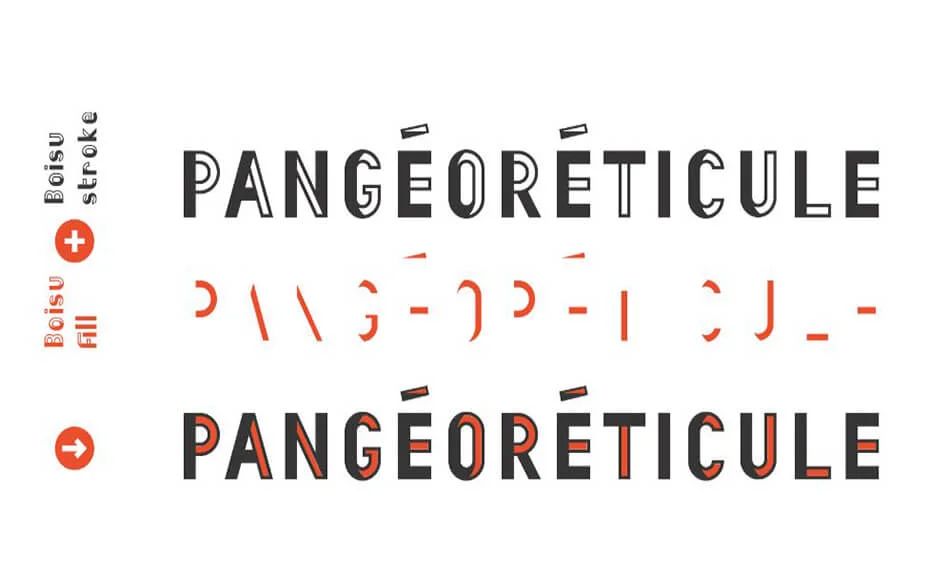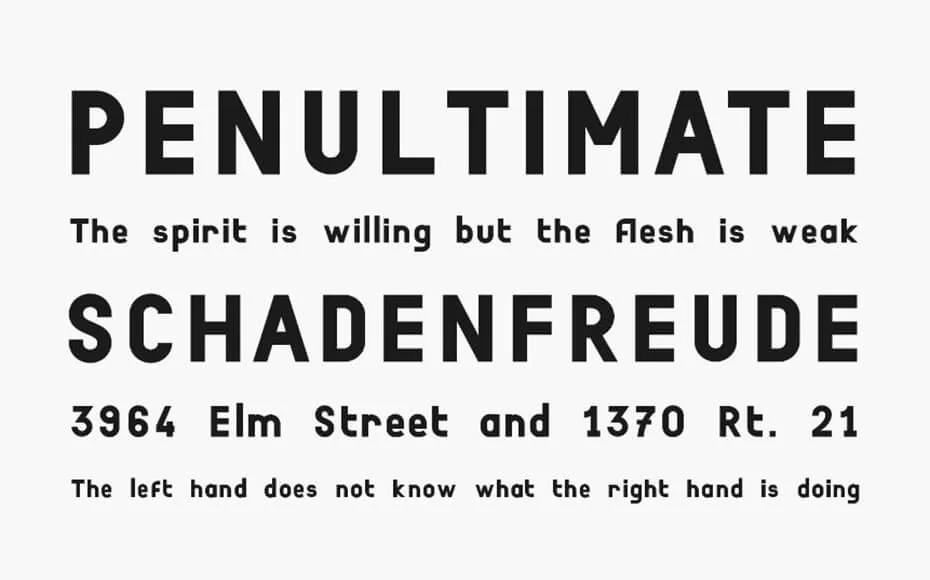
Boisu Font is an industrial typography display typeface that is also good and readable in smaller paragraph sizes. Best suitable for posters, wall signs, print titles, T-shirt designs, ads, and similar projects.
A famous graphic designer Yann Gall takes the credit for developing this creative typeface. And it was released in 2018 and is categorized under display fonts.
This font family is a very attractive, unique, and deep typeface with space in between throughout the font family.
The letters of this classic font show deep features and excellent readability that you can see in the images we link here.
This sans serif font family has unique style features. So, due to this feature, it has everything that a designer insists on having in his design campaign.
You can use this simple font family for many commercial purposes like photography, watermarks, logo designing, business cards, special events, titling, printing on fabric, and many more. It would also be a good idea to apply it to a game or website template or movie title.
This awesome font has 401 glyphs and 3 styles including stroke, fill and fill. And it is perfect when it combines all the basic font styles for a better taste in pairing fonts.